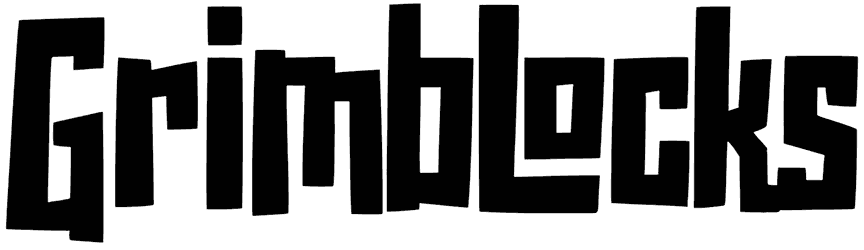
Grimblocks Font
The beauty of Grimblocks font lies in its unusual shapes and distinctive weight, which gives it a playful look. This block font has a stunning modern appeal that conveys a strong personality with a childish touch.
Contrasting and irregular letters can provide you with a new vision for implementing ideas without numbers. So if you’re looking to implement a logo or title that looks familiar and friendly while maintaining a subtle sense of boldness, add Grimblock to your toolbox.